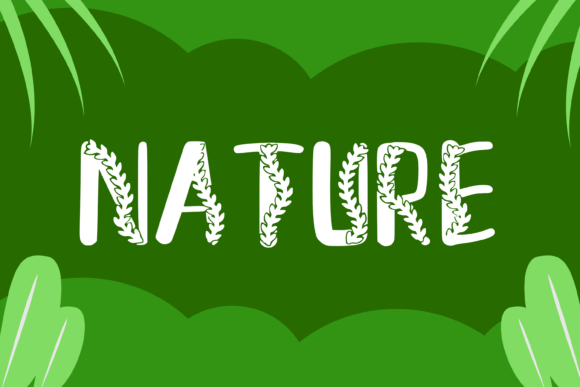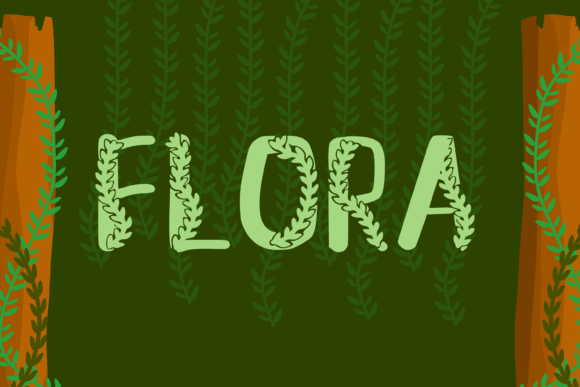
The Climb Leaf Font: A Nature-Inspired Design Essential
I’ll never forget the design project that led me to discover the Climb Leaf font. I was working on an eco-friendly branding campaign for a new sustainable product line, and I was struggling to find the perfect font that captured the essence of nature. The client wanted something that conveyed serenity, growth, and a deep connection to the outdoors. That’s when I stumbled upon Climb Leaf, and it instantly became the perfect fit.
A Designer’s Honest Review
- ✨ The smooth, organic feel of every stroke and curve, which gives it a natural and effortless look
- ✅ The symmetry of leaves and the elegance of climbing flora, making it perfect for eco-friendly designs
- 🌿 The soft lines and flowing aesthetic, which add a touch of serenity to any design
- 💚 The versatility of the font, suitable for a wide range of creative projects, from branding to packaging
While Climb Leaf is an amazing font, there are a few things to keep in mind:
- ⚠️ Some of the more intricate glyphs may not display properly on older systems or devices
- 🤔 The font’s delicate lines can get lost when used in very large or very small sizes
- Experiment with OpenType features, such as stylistic alternates, to add visual interest to your design
The Climb Leaf font was inspired by the beauty of nature and the elegance of climbing flora. The designer, who wishes to remain anonymous, was on a hike in the woods when they stumbled upon a stunning display of green tendrils climbing up a tree. The intricate patterns and smooth lines of the tendrils sparked the idea for Climb Leaf, which has since become a popular choice for eco-friendly designs.
Q: What makes Climb Leaf so special?
A: Climb Leaf’s unique blend of natural elegance and symmetry makes it perfect for eco-friendly designs and projects that celebrate the outdoors.
Q: Is Climb Leaf suitable for digital use?
A: Absolutely! Climb Leaf is optimized for digital use and looks great on a variety of devices and platforms.
Q: Can I use Climb Leaf in combination with other fonts?
A: Yes, Climb Leaf pairs well with a variety of fonts, and you can experiment with different combinations to find the perfect look for your project.